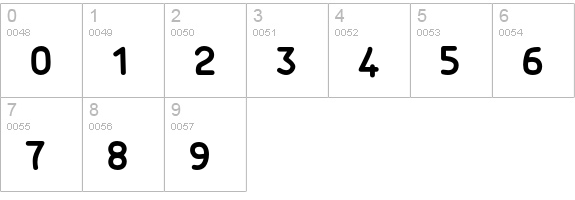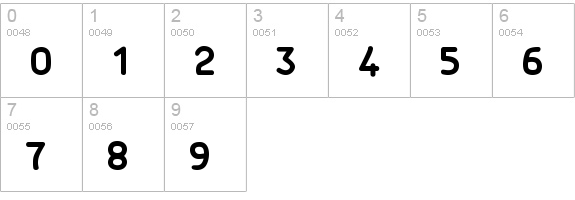
FontSoupGerman-Boiled Font Details
FontSoupGerman-Boiled is a visually captivating and versatile font that exudes a unique charm and character. Its bold and distinctive letterforms are inspired by traditional German typography, giving it a sophisticated and classic appearance. This font is perfect for adding a touch of elegance to your designs, whether it be for branding, packaging, invitations, or any other creative project. The best part about FontSoupGerman-Boiled is that it is completely free to download at FontsMarket.com. This means you can easily access this beautiful font and use it in your projects without any cost. Don't miss out on the opportunity to enhance your designs with this stylish and eye-catching font. Download FontSoupGerman-Boiled today and elevate your creative work to new heights!